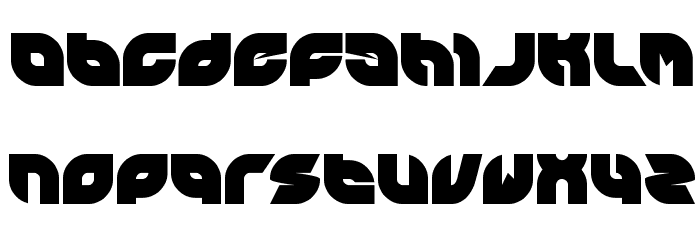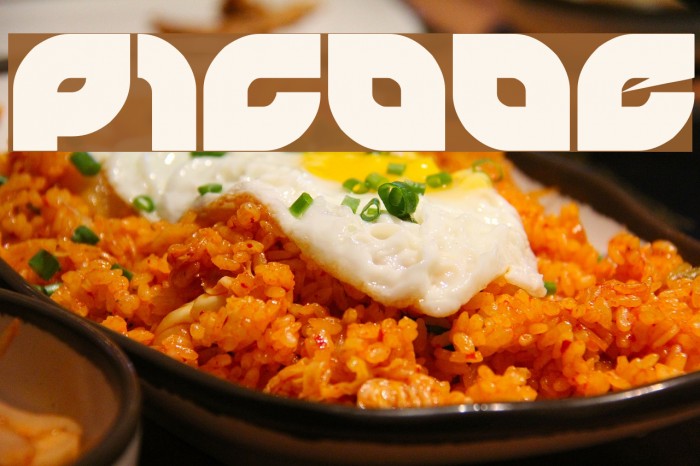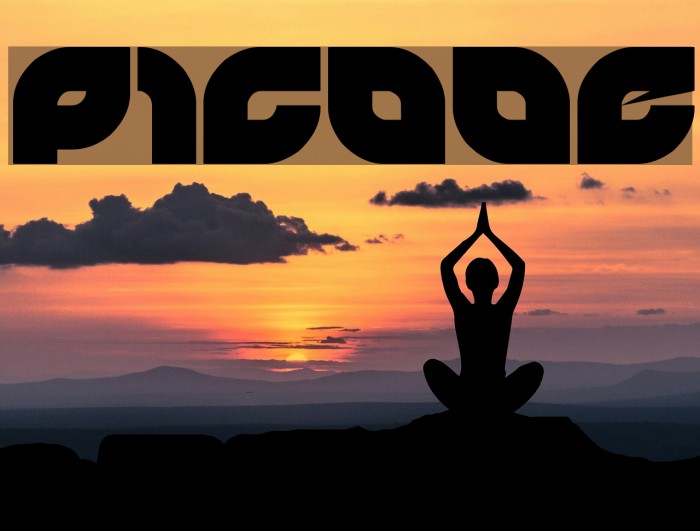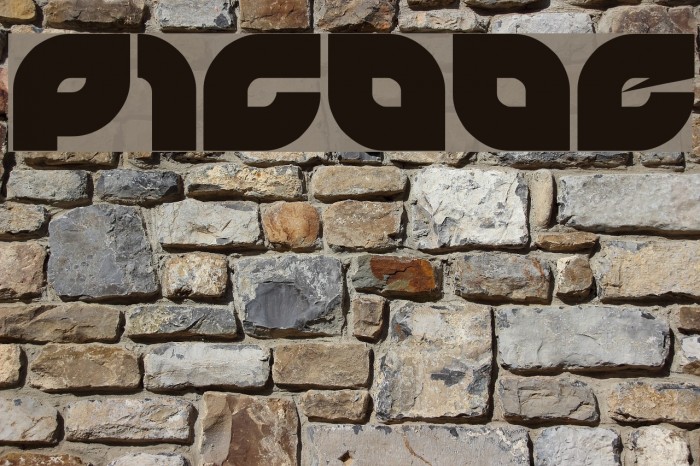
picaae Font
This font features a bold, geometric style with a futuristic flair. Each character is crafted with thick, uniform strokes, creating a strong visual impact. The design incorporates sharp angles and unique cutouts, giving it a distinctive and modern appearance. The characters are wide and have a consistent height, contributing to a cohesive look. The font's boldness and unique style make it stand out, ideal for projects that require a strong visual presence.
A bold, geometric font with a futuristic and modern style.
- Proposed Projects: Ideal for branding, logos, headlines, and posters where a strong and modern aesthetic is desired.